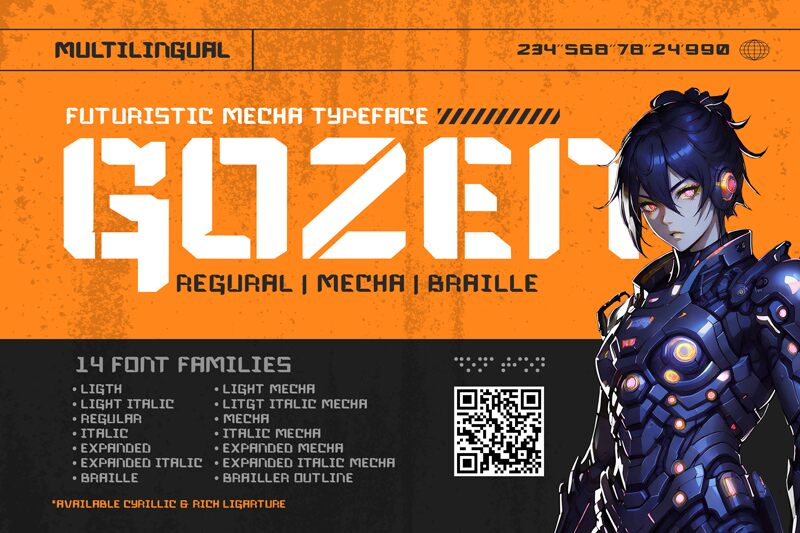
Gozen font
Gozen
Immerse yourself in the world of the future with Gozen, a strikingly bold typeface carefully engineered for contemporary style. Gozen is designed with a futuristic flair while remaining firmly rooted in the present. It offers 14 uniquely styled fonts and supports Braille in both Latin and Cyrillic forms, enhancing its versatility and usability. The typeface features a one-of-a-kind stencil/mecha variant, making Gozen an ideal choice for various creative projects.
Perfect for establishing an unforgettable brand identity, developing captivating gaming interfaces, creating eye-catching headlines, revamping streetwear designs, stylizing album covers, or innovating logo design, Gozen's remarkable and distinctive style ensures your message stands out. Get ready to embrace the future with Gozen—where daring design meets groundbreaking innovation.
Support for Cyrillic and Braille Pattern